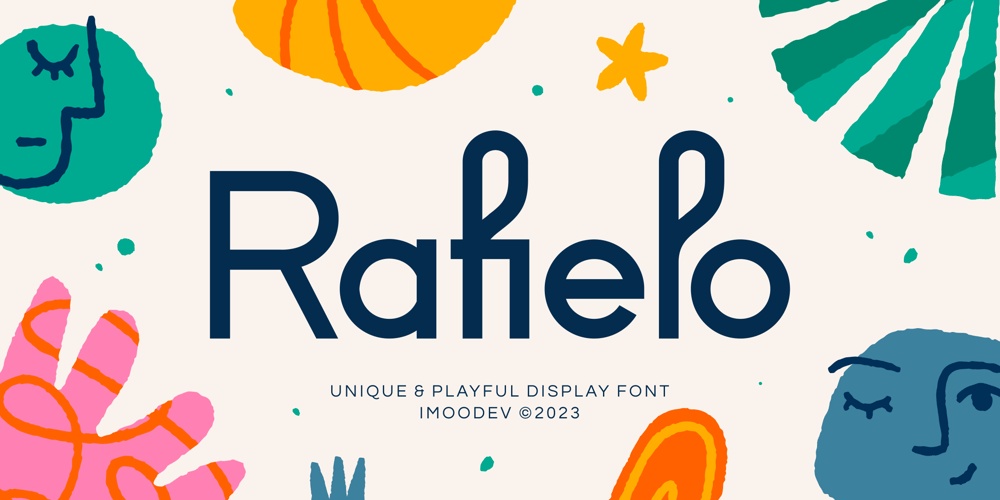
Rafielo Font Family was designed by Aulia Savira Putri and published by Imoodev. Rafielo contains 1 styles and family package options. Rafielo born from hand-lettered style combines fun and playful. Great for stand-out quotes, playful branding, children’s books, logo designs, quirky greeting cards, product packaging, merchandise and so much more!